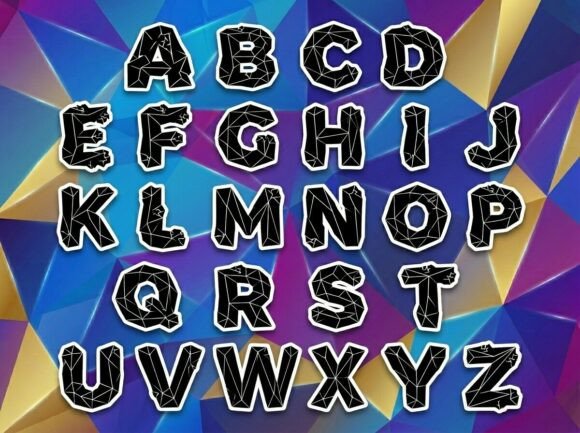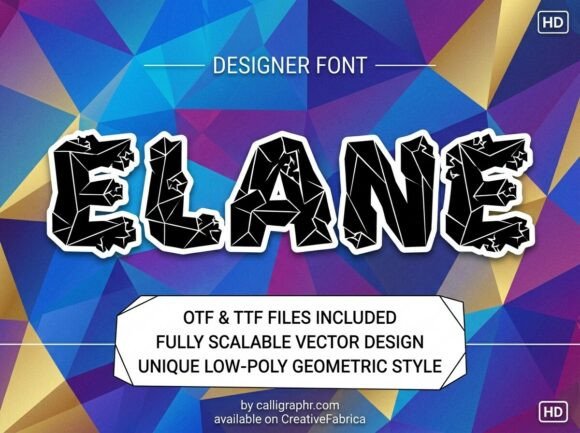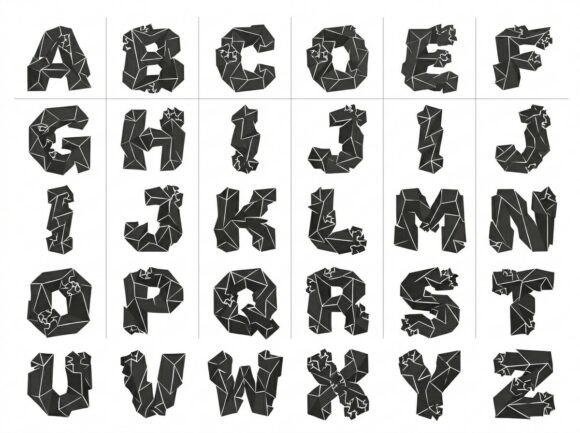
Introducing Elane Font: A Stunning Decorative Display Font
Are you tired of using the same old fonts for your designs? Look no further than Elane Font, a unique and artistic display font that’s sure to turn heads. With its strong visual personality and decorative elements, this font is perfect for creators who want to add a touch of elegance and sophistication to their work.
What Makes Elane Font Special?
Elane Font is a decorative display font designed to be the center of attention. Its unique artistic elements and strong visual personality make it perfect for bold headlines, artistic logos, and creative packaging. Whether you’re a designer, crafty DIY enthusiast, or entrepreneur, this font is versatile enough to meet your needs while maintaining a professional and polished finish.
Key Features of Elane Font
- Unique Artistic Elements: Elane Font features intricate and decorative elements that will add a touch of elegance to your designs.
- Strong Visual Personality: This font has a bold and eye-catching appearance that’s sure to grab attention.
- Versatile: Use Elane Font for bold headlines, artistic logos, and creative packaging.
- Professional and Polished Finish: Despite its decorative nature, Elane Font maintains a professional and polished finish that’s perfect for high-end designs.
⚠️ IMPORTANT NOTE BEFORE PURCHASE: Elane Font is an ALL-CAPS (Uppercase Only) display typeface. It does not include lowercase letters. It is specifically designed for high-impact headlines, logos, and decorative initials where every letter is a work of art.
Why Choose Elane Font?
There are many fonts available, but Elane Font stands out from the rest. Here are just a few reasons why:
- Uniqueness: Elane Font is a one-of-a-kind font that’s sure to make your designs stand out.
- High-Quality: This font is designed with high-quality and precision, ensuring that it looks great in any design.
Here are a few tips and tricks to help you get the most out of Elane Font:
- Use it for Headlines: Elane Font is perfect for bold headlines and titles.
- Experiment with Colors: Try pairing Elane Font with different colors to create a unique and eye-catching design.
- Mix and Match: Combine Elane Font with other fonts to create a unique and interesting design.
Elane Font is a stunning decorative display font that’s perfect for creators who want to add a touch of elegance and sophistication to their designs. With its unique artistic elements, strong visual personality, and versatility, this font is sure to turn heads. Whether you’re a designer, crafty DIY enthusiast, or entrepreneur, Elane Font is a great addition to your font collection.